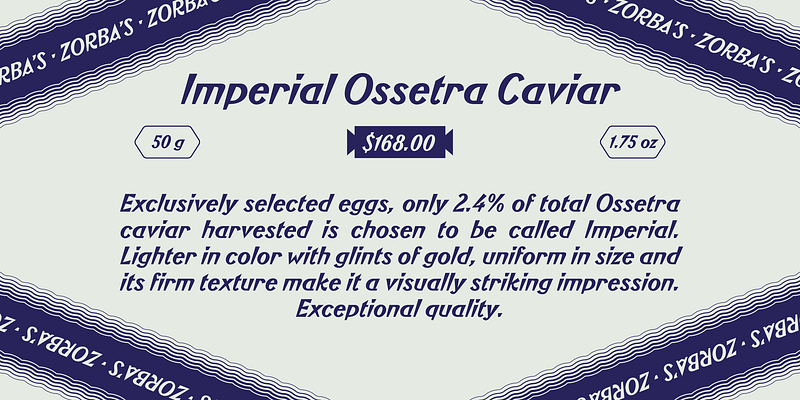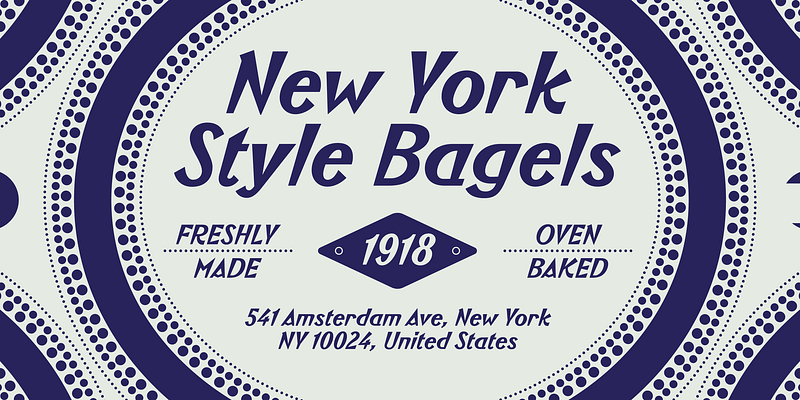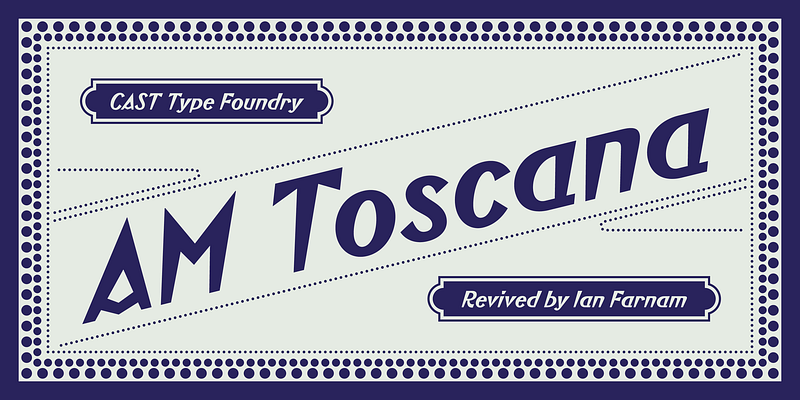
AM Toscana is an eclectic wood type characterised by vernacular letterforms. It is a spiky semi-condensed italic sans, with low thick-thin contrast and short descenders but tall ascenders. Its most striking feature is definitely the systematic wedge-like tapering of stems from top to bottom in all glyphs.